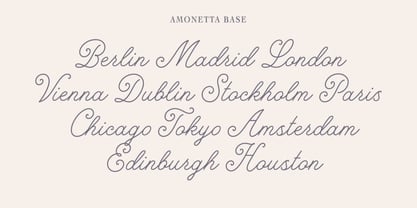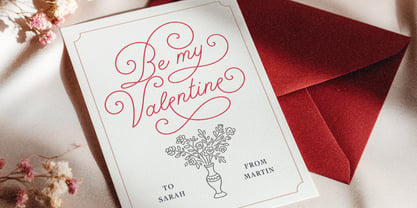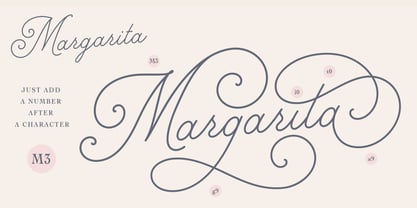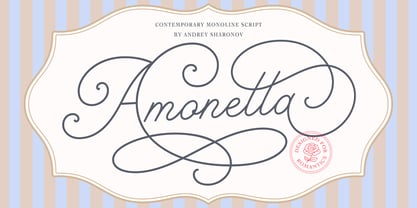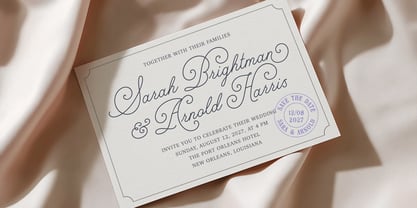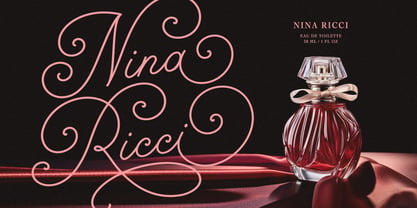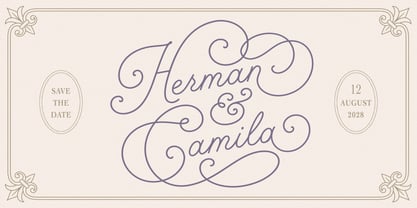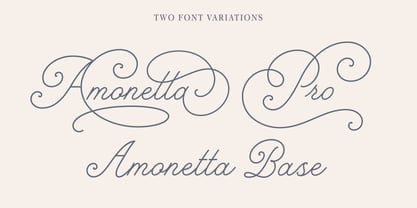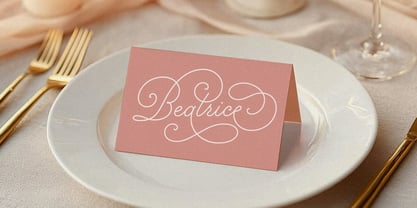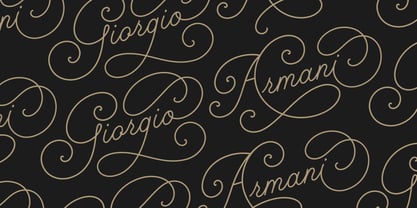
Amonetta
by Andrey Sharonov
Amonetta is contemporary monoline script font created to inspire charm and sophistication in your design projects. Featuring a wide range of alternates with sweeping strokes, it gives you possibility to craft unique and expressive lettering compositions. While this font naturally shines in writing names, wedding invitations, save-the-dates, and event stationery, its variety of applications makes it equally suitable for fashion branding, luxury packaging, editorial design, logos, and inspirational quotes. With its graceful curves and refined flow, Amonetta adds a luxurious touch to any project — from romantic designs to high-end visual identities. Amonetta comes in two variations: Pro, featuring over 360 graceful alternates, and Base — a simplified version with the standard character set and more compact uppercase letters. To access an Alternate in Amonetta Pro, just add a number after a character (e.g., A7, B2, D4, H10, T6 etc). This feature works via Standard Ligatures.